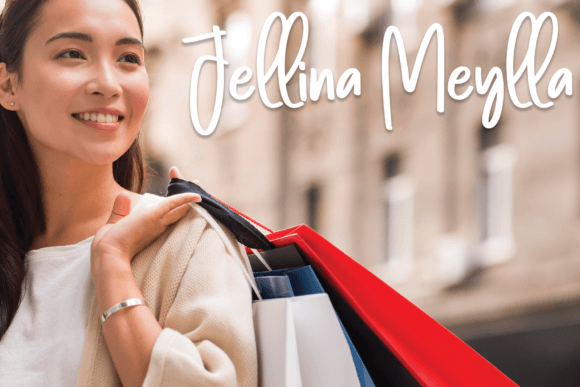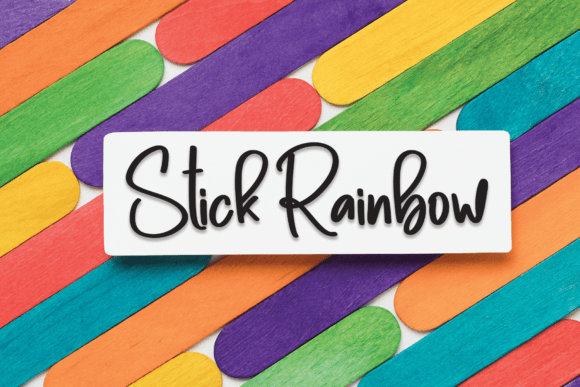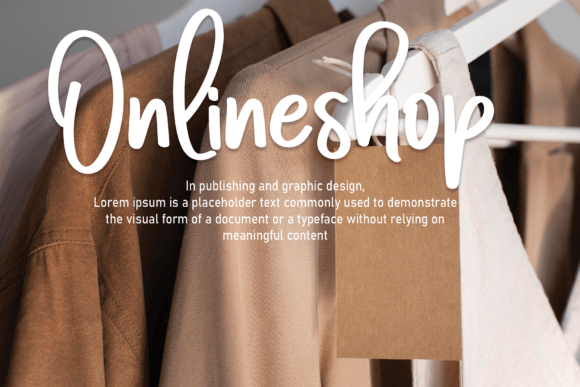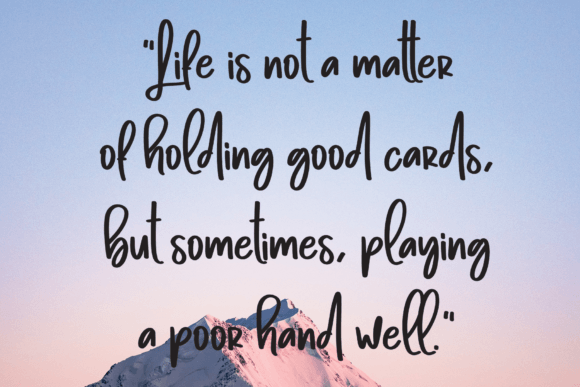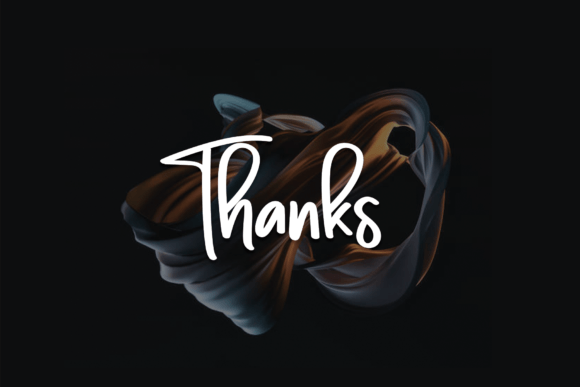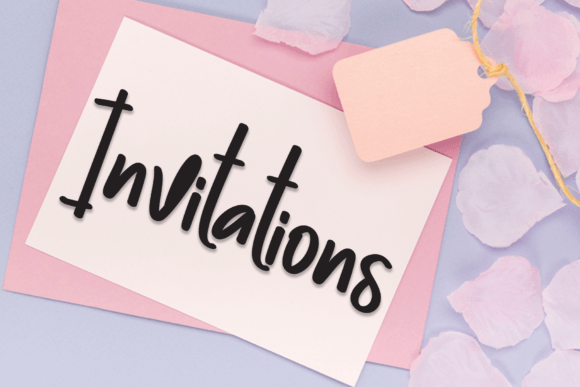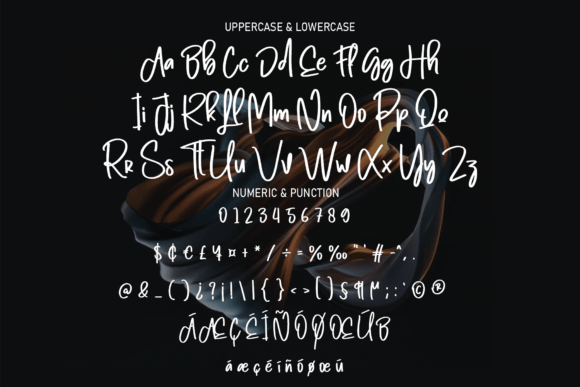
Samble Font
About Samble Font
“Samble” is a charming and effortlessly neat handwritten font that effortlessly elevates any design. Regardless of the subject matter, this font is a valuable addition to your font repertoire, with the potential to enhance every creative endeavor.
With its casual yet refined appearance, “Samble” strikes the perfect balance between approachability and elegance. The smooth, flowing lines of this font give it a friendly and relatable quality, making it suitable for a wide range of design applications.
Imagine using “Samble” for a cookbook cover, where the title is written in this font, instantly evoking a sense of approachable culinary delight. Alternatively, picture a cozy lifestyle blog logo designed with “Samble,” conveying a welcoming and relatable atmosphere to your audience.
One of the key strengths of “Samble” lies in its versatility. It adapts effortlessly to various design contexts, making it a valuable tool for designers of all backgrounds. Whether you’re creating a social media graphic, a greeting card, or a product label, “Samble” can enhance your message and capture the essence of your project.
Furthermore, “Samble” is exceptionally legible, ensuring that your text remains clear and readable in any size or format. This readability is especially important when conveying important information or messaging in your designs.
In summary, “Samble” is not just a font; it’s a versatile asset that can breathe life into your creative projects. Its casual yet neat handwritten style adds a touch of character and warmth to your designs, making it an ideal choice for a wide range of applications. With “Samble” in your font library, you have a reliable companion to enhance your design endeavors, no matter the topic or medium.